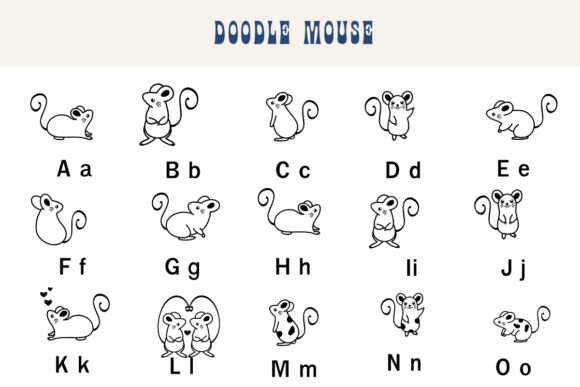
Doodle Mouse Font
Doodle Mouse is a fun dingbat font with a cute theme. This font can enhance your creative projects such as wedding invitations, DIY, crafts, decorations, logos, and many other creative ideas.